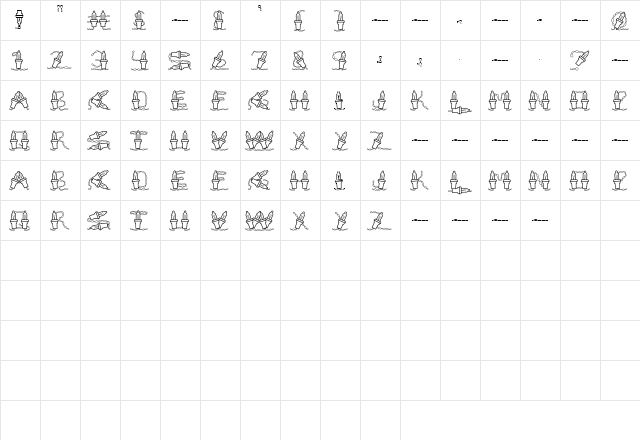
Scrap Lights Regular
Design Context for Scrap Lights Typeface
Scrap Lights is a composed and adaptable typeface that performs quietly and consistently across a wide range of design contexts. Its slender proportions lend an understated elegance to any composition.